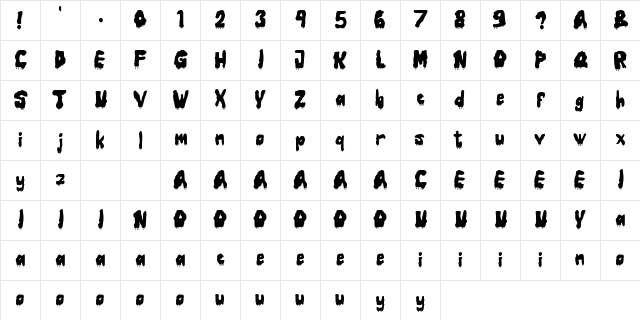
Horror Night Drip Regular
Design Context for Horror Night Drip Typeface
Horror Night Drip carries an unsettling edge — its distorted letterforms are built to unsettle, perfectly suited to horror, Halloween, and dark creative work.
Perfect for anything that needs to unsettle — game titles, horror branding, and macabre invitations.
Font Pairing: Pair with a clean neutral sans-serif for body copy to let Horror Night Drip's character lead without overwhelming the composition.
Pro Tip: Use Horror Night Drip at larger display sizes for maximum impact. Consider generous tracking to let the disturbing character of each letterform breathe.